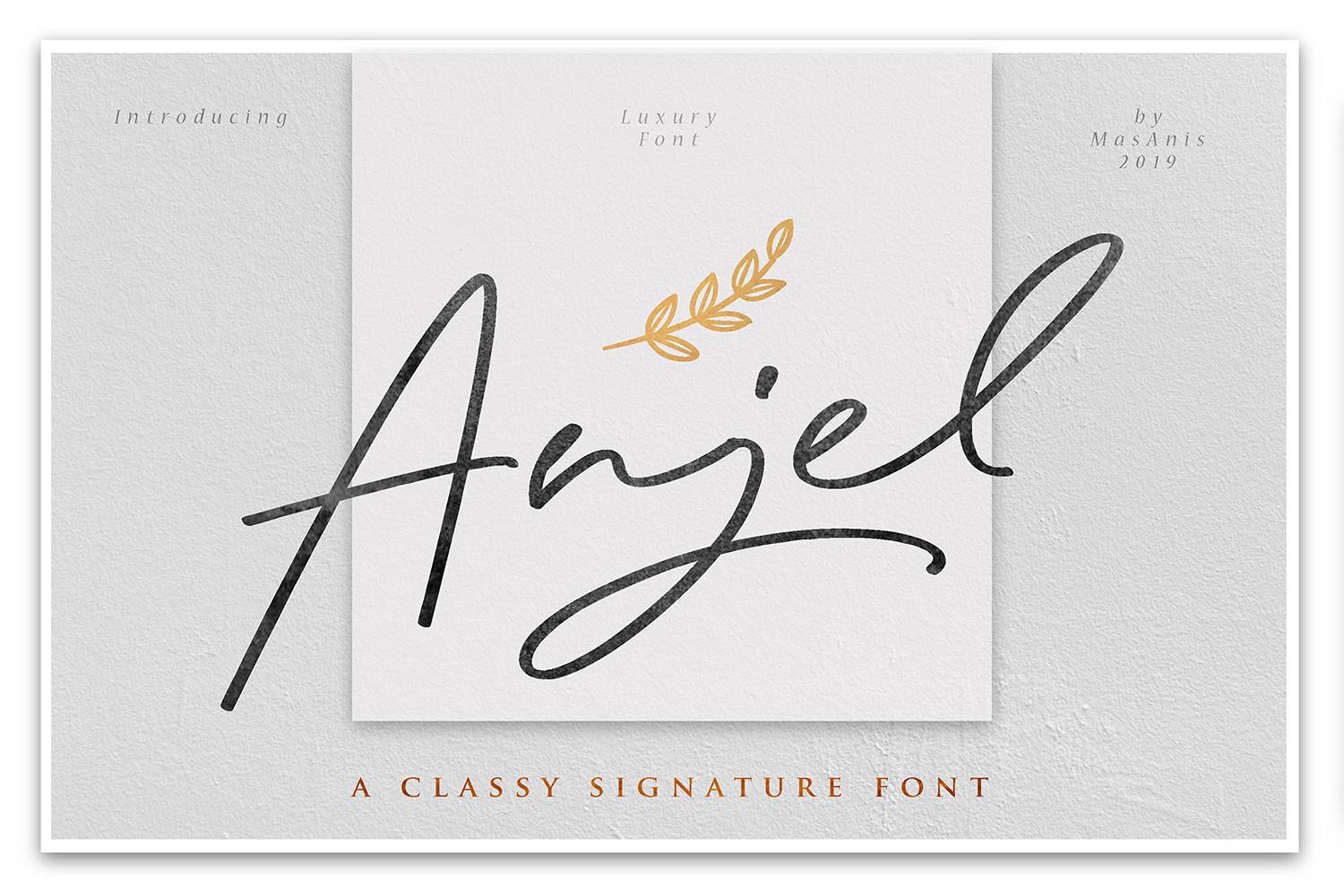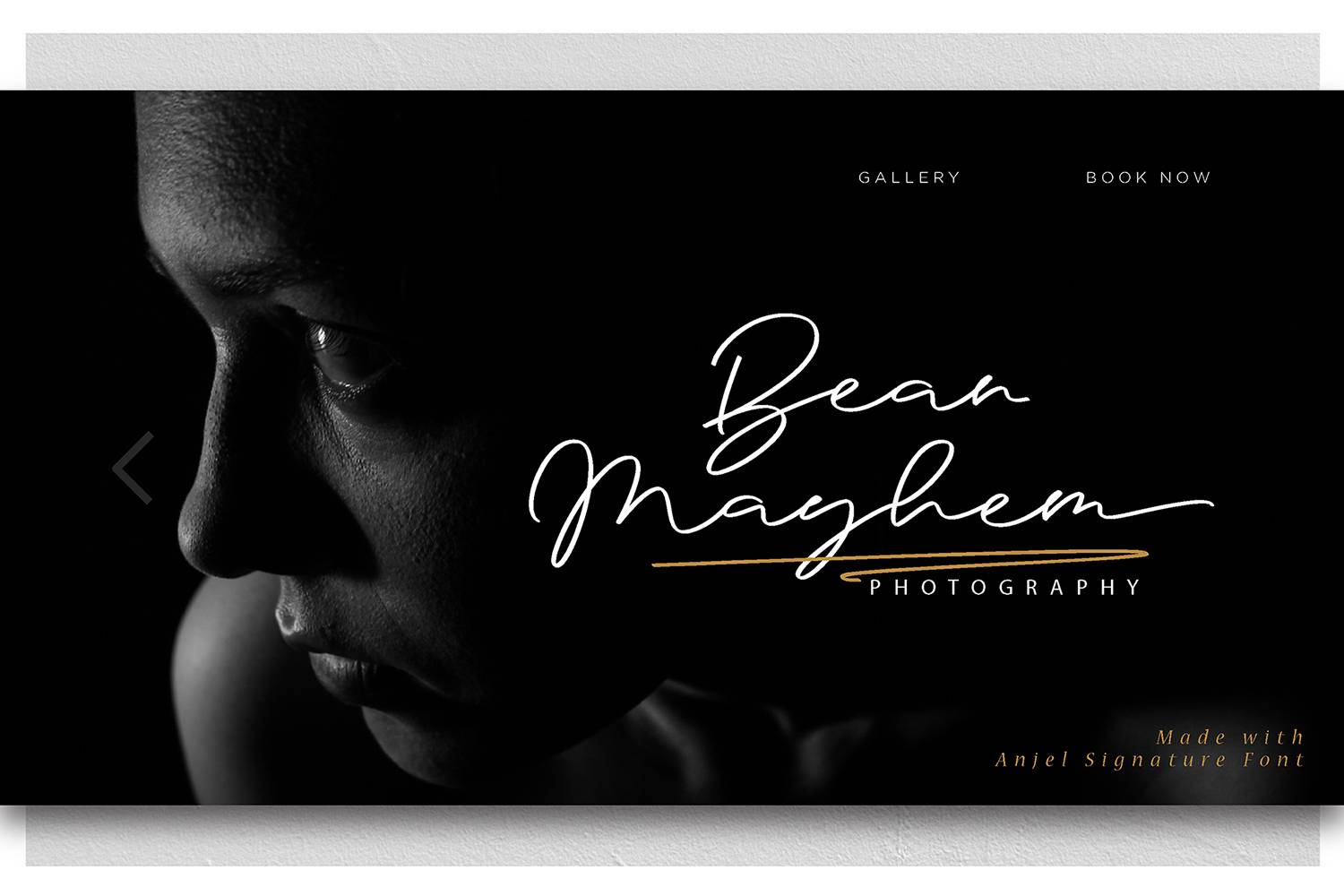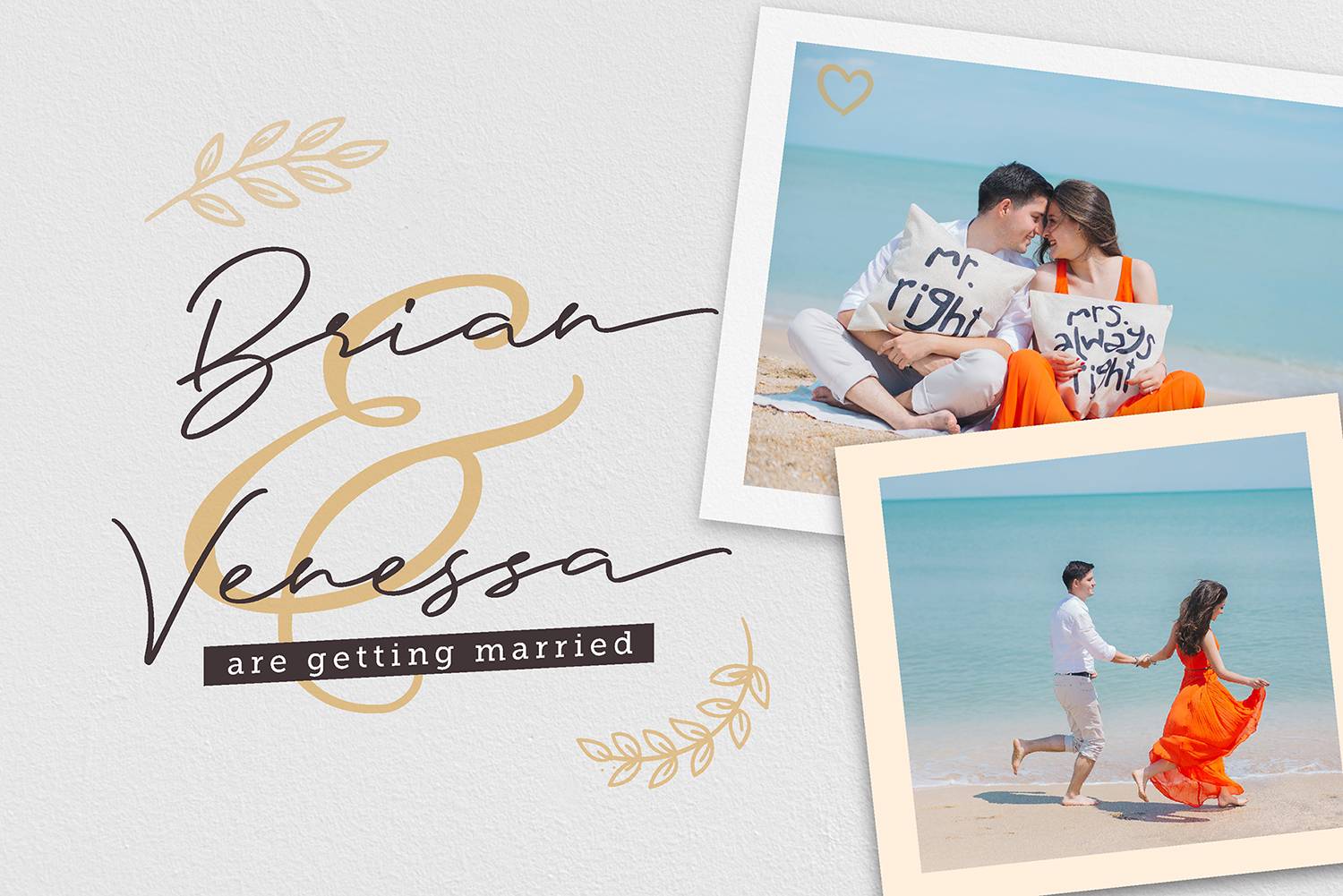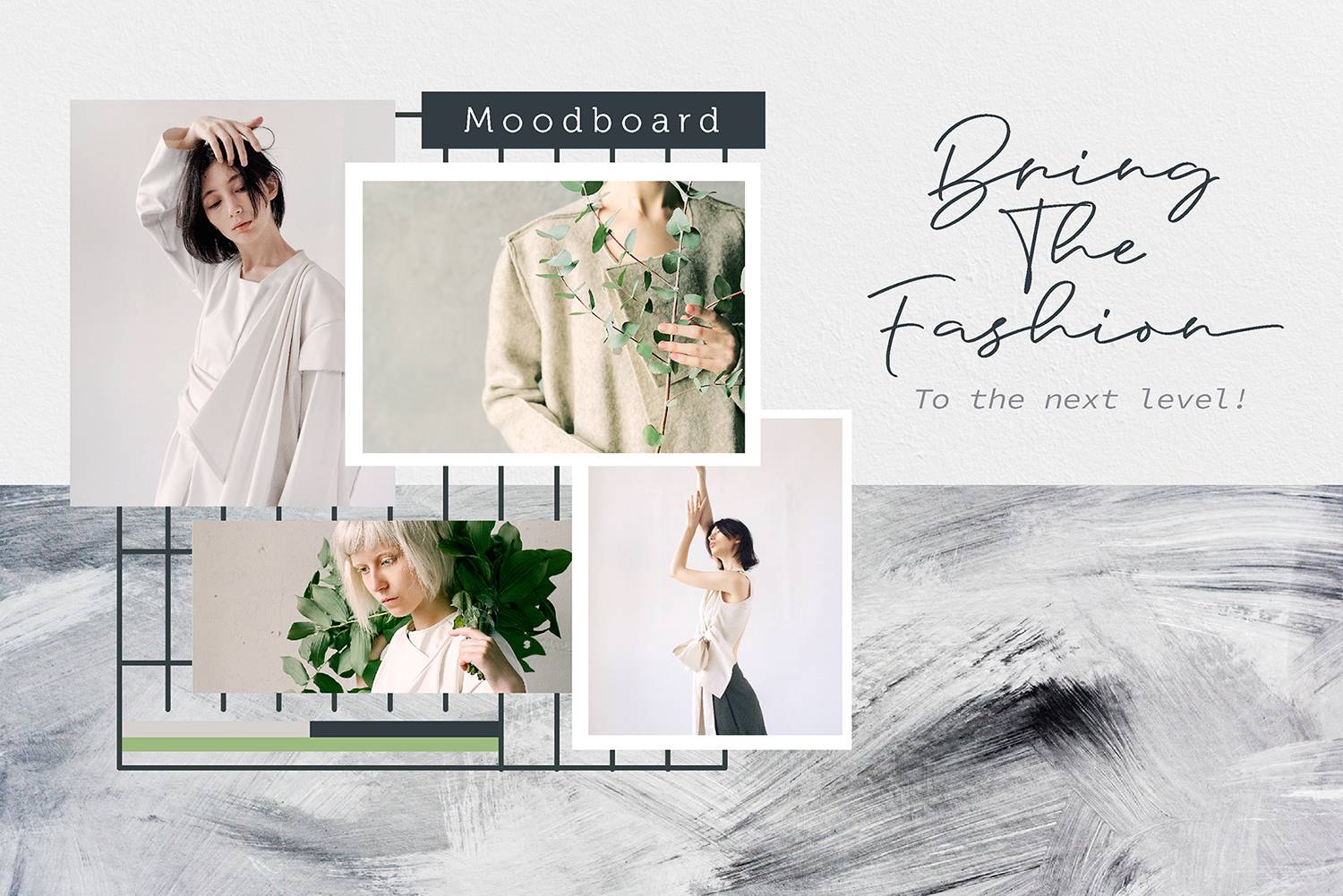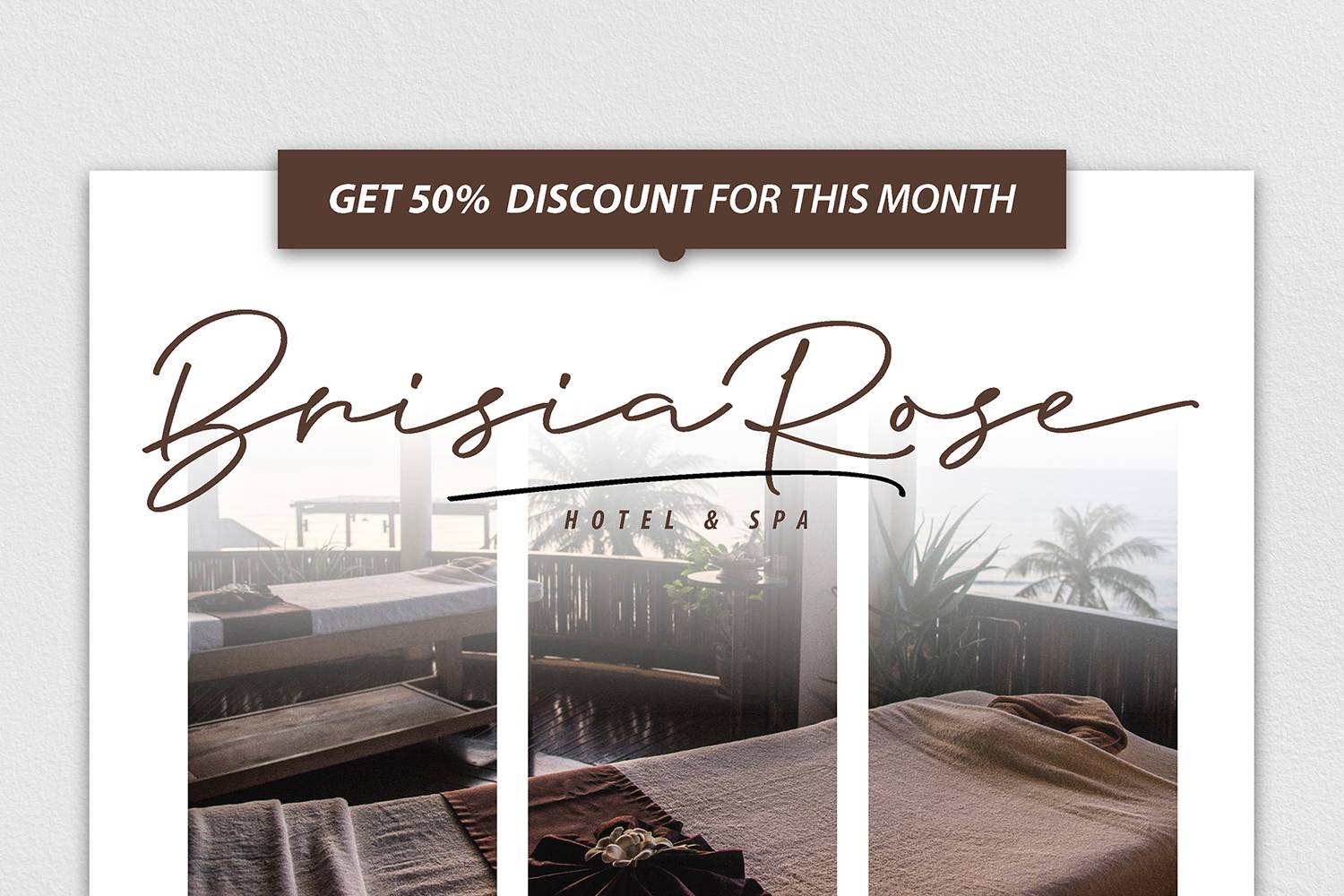
Anjel Script is a delicate, handwritten script font characterized by its thin, flowing strokes and elegant, slightly irregular letterforms. Its tall x-height and light weight give it a graceful, airy feel that works beautifully for invitations, branding, and creative projects seeking a personal, sophisticated touch. This font is ideal for designs that want to convey elegance and warmth with a modern, casual flair.
Anjel Font
About Anjel Font
| Font family | Anjel Font |